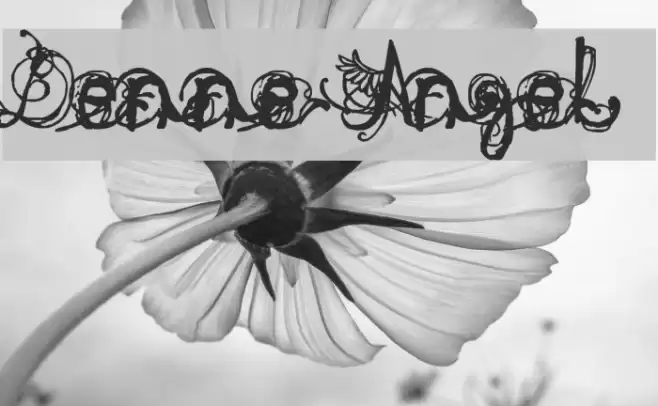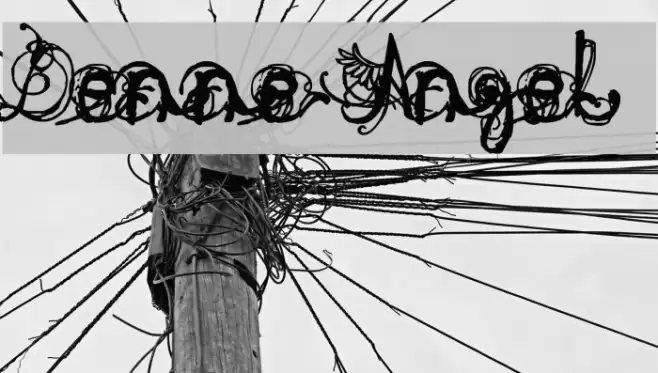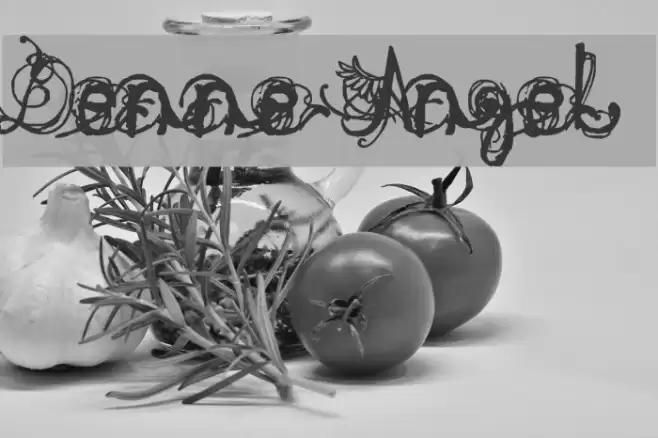
Denne Angel Font
Denne Angel Description
This font is an elaborate and decorative script with intricate swirls and loops, creating a sense of elegance and complexity. The uppercase letters are highly stylized with extensive flourishes, making them stand out as statement pieces. The lowercase letters maintain the decorative theme but are slightly more subdued, allowing for readability while still being ornate. The numbers are more straightforward, with a classic serif style that contrasts with the decorative letters. Special characters are included, maintaining the overall aesthetic with a mix of script and serif elements. This font is ideal for projects that require a touch of sophistication and artistic flair.
An ornate and decorative script font with intricate swirls and flourishes from Uncategorized fonts.
- Proposed Projects: Ideal for wedding invitations, luxury branding, artistic posters, and decorative headlines.
- Character Spacing: Tight